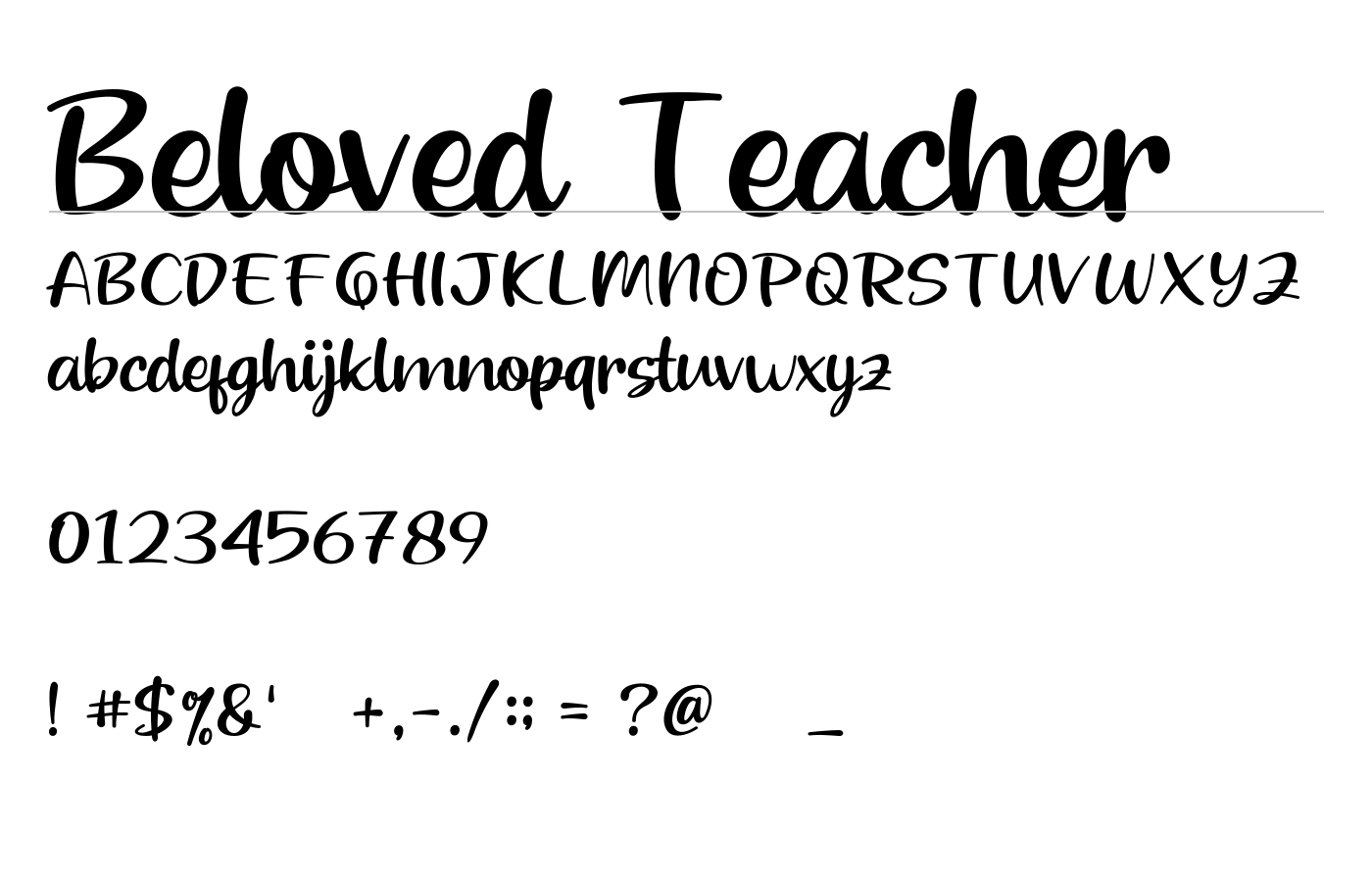
Beloved Teacher is a friendly and inviting script font with smooth, rounded strokes that give it a warm, handwritten feel. Its balanced mix of casual elegance and readability makes it perfect for educational materials, greeting cards, and branding that aims to convey approachability and charm. This font works well in both headlines and short texts where a personal, heartfelt touch is desired.
Beloved Teacher Font
About Beloved Teacher Font
| Font family | Beloved Teacher Font |